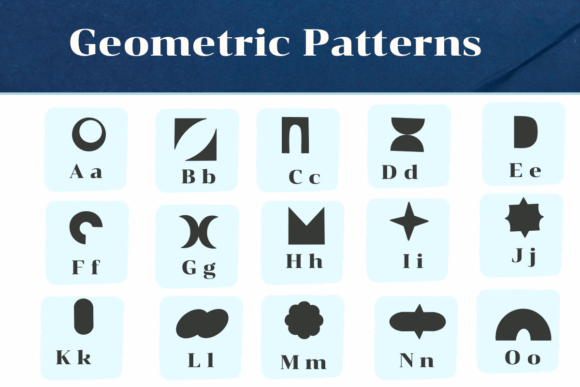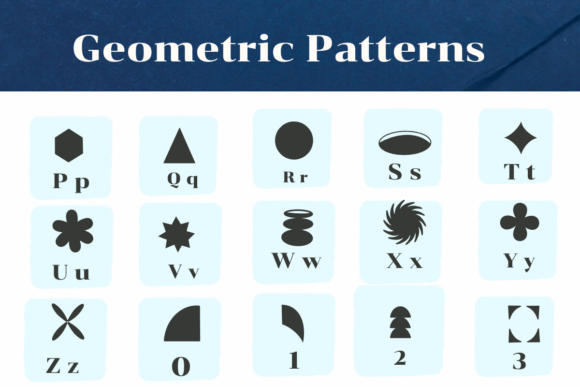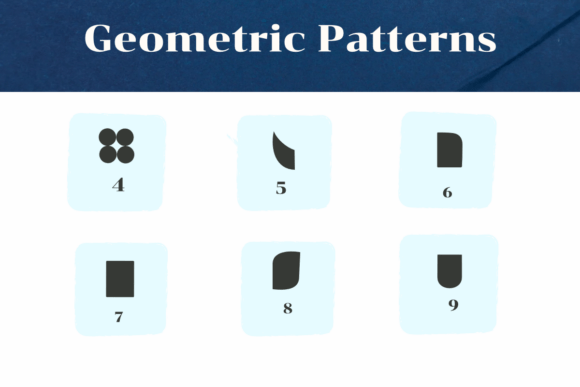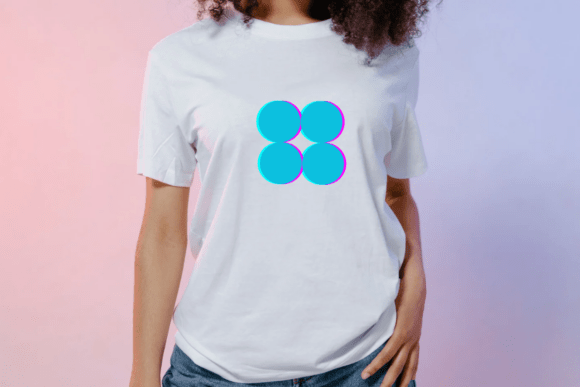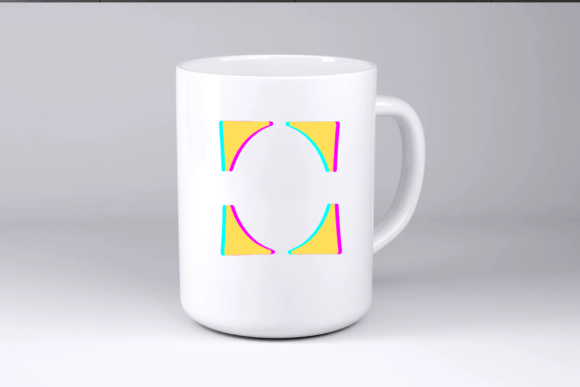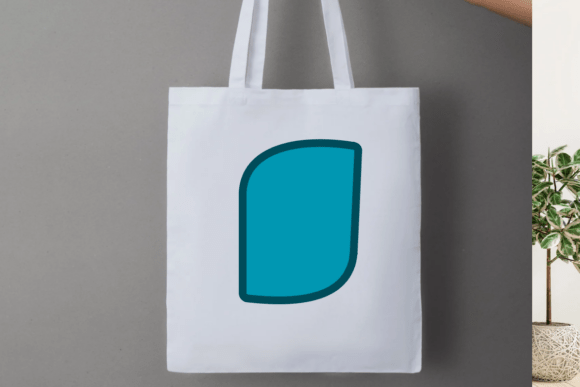
Unlock Modern Minimalism with Geometric Patterns Font
In the realm of design, the right font can elevate your project from ordinary to extraordinary. For those who appreciate the clean lines and simplicity of modern minimalism, the Geometric Patterns Dingbats Font is a game-changer. This versatile set of dingbats is not just a font; it’s a collection of design elements that can transform your branding, logos, packaging, textile designs, and creative layouts.
What are Geometric Patterns?
Geometric patterns are a cornerstone of modern design, offering a universal language of shapes and forms that transcend cultural and linguistic barriers. These patterns can range from simple, repetitive motifs to complex compositions that play with symmetry and negative space. The Geometric Patterns Dingbats Font taps into this rich vein of design, providing a curated selection of angular, circular, and abstract shapes.
Features of the Geometric Patterns Dingbats Font
- Versatile Design Elements: The font includes a wide variety of geometric shapes, from basic polygons to more intricate designs. Each symbol is carefully crafted to be vector-perfect, ensuring that it scales up or down without losing clarity.
- Clean and Modern Aesthetic: The geometric patterns in this font are characterized by their clean lines and minimalist approach. This makes them incredibly versatile for use in a range of design applications, from corporate branding to personal craft projects.
- Ease of Integration: Despite the intricate designs, each symbol is easy to integrate into any design workflow. Whether you’re working with graphic design software, a web design platform, or a craft project, these dingbats can be seamlessly incorporated.
Applications of the Geometric Patterns Dingbats Font
The applications of this font are as varied as the designs themselves. Here are a few ways designers and crafters can utilize the Geometric Patterns Dingbats Font:
- Branding and Logos: Create a memorable brand identity with unique logos that incorporate geometric patterns. These designs can convey a sense of modernity and professionalism.
- Packaging Design: Stand out on the shelves with packaging that features bold, geometric patterns. This not only attracts attention but also communicates a brand’s commitment to modern design.
- Textile Design: Bring geometric patterns into the world of fashion and home decor. These designs can be used for fabrics, wallpapers, and other textile products, offering a fresh and contemporary look.
- Creative Layouts: Whether you’re designing a website, a magazine, or an infographic, the geometric patterns can add visual interest and guide the viewer’s eye through the layout.
Tips for Using Geometric Patterns Effectively
To make the most of the Geometric Patterns Dingbats Font, consider the following tips:
- Mix and Match: Don’t be afraid to combine different patterns and shapes to create a unique design. The contrast between geometric forms can add depth and interest.
- Play with Scale: Experimenting with the size of the patterns can help emphasize certain elements of your design and create a dynamic visual hierarchy.
- Consider Color: While the font itself is vector-perfect and works well in any color scheme, choosing a cohesive palette can enhance the overall impact of your design.
The Geometric Patterns Dingbats Font offers a world of creative possibilities for designers and crafters looking to infuse their projects with a modern minimalist aesthetic. With its versatile design elements, clean aesthetic, and ease of integration, this font is a valuable tool for anyone looking to elevate their design work. Whether you’re crafting a brand identity, designing packaging, or creating something entirely new, the Geometric Patterns Dingbats Font is your gateway to a universe of geometric design possibilities.